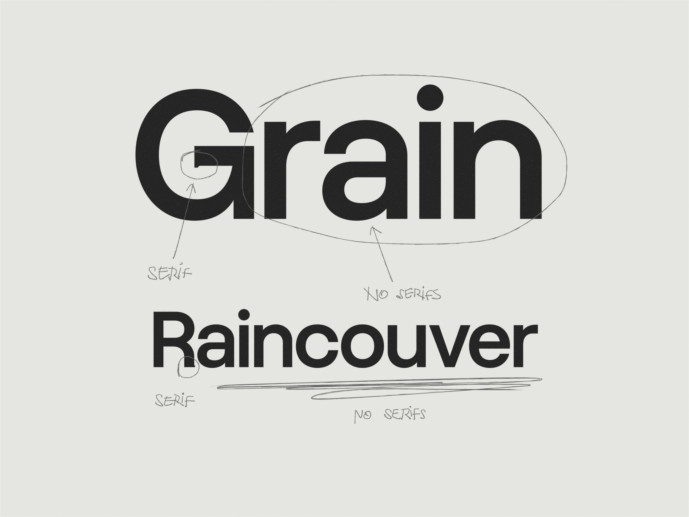
Grain Font
Designer: Petr Kučera
Grain Font is a grotesque constructed from simple forms with compact spacing. The drawing is soft yet controlled, with curves that remain settled and unaccented. Clarity and readability are maintained while the typeface maintains a restrained presence on the page.